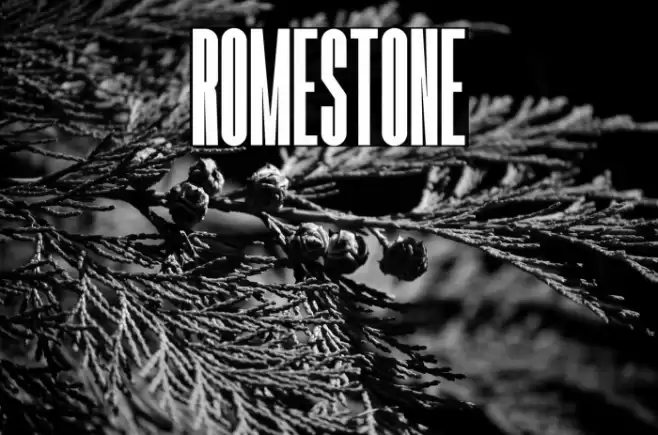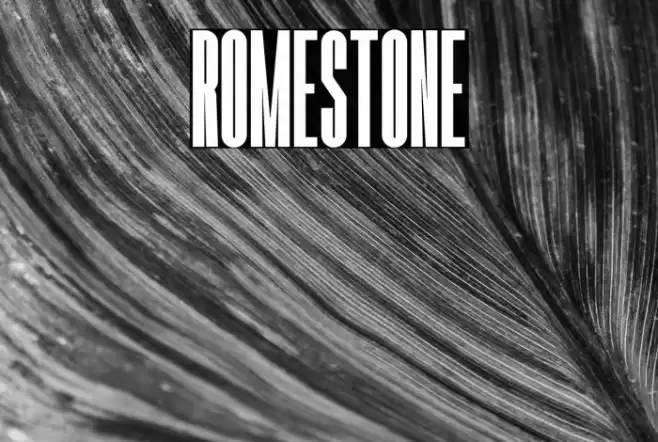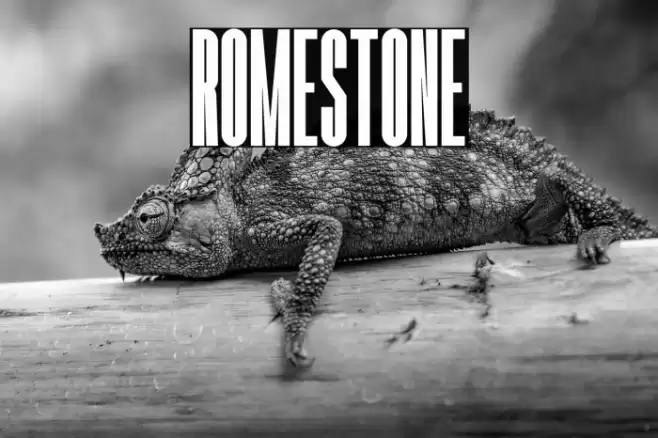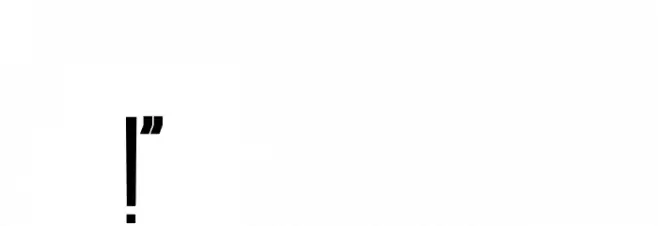
Romestone Font
Romestone Description
This font is characterized by its bold, condensed letterforms, creating a strong and impactful visual presence. The uppercase letters are tall and narrow, with consistent stroke widths that emphasize verticality. The lack of lowercase letters and numerals suggests a focus on headline or display use. The font's design is modern and assertive, making it suitable for attention-grabbing applications. The spacing between characters is tight, enhancing the compact and dense appearance of the text. The overall style is contemporary and sleek, ideal for projects that require a bold statement.
A bold, condensed font with a modern and impactful style from Uncategorized fonts.
- Proposed Projects: Ideal for headlines, posters, advertising, and branding where a strong visual impact is needed.
- Character Spacing: Tight